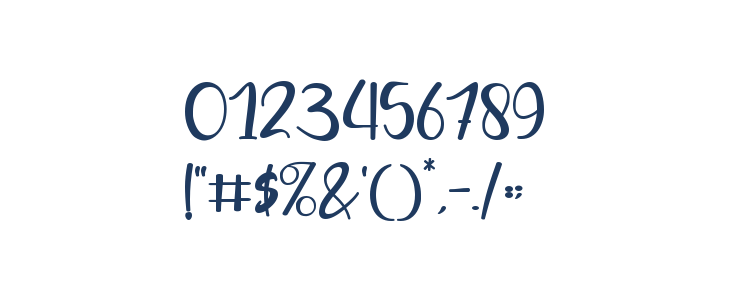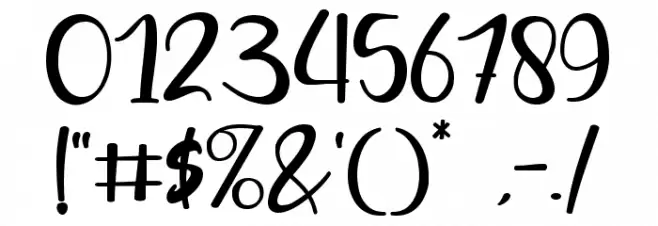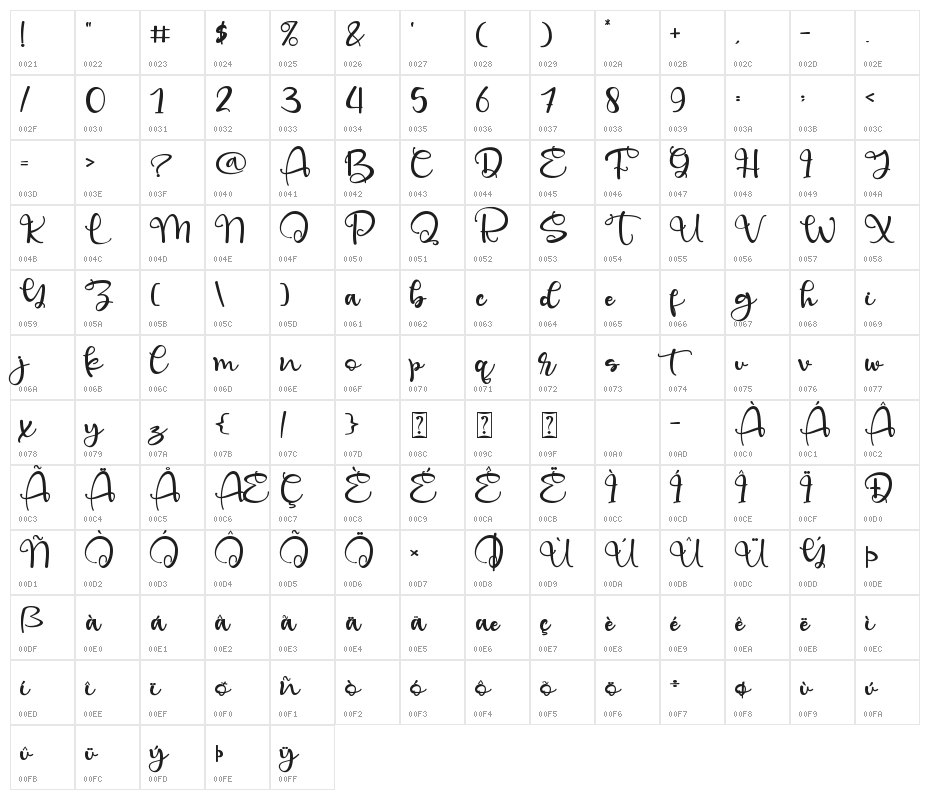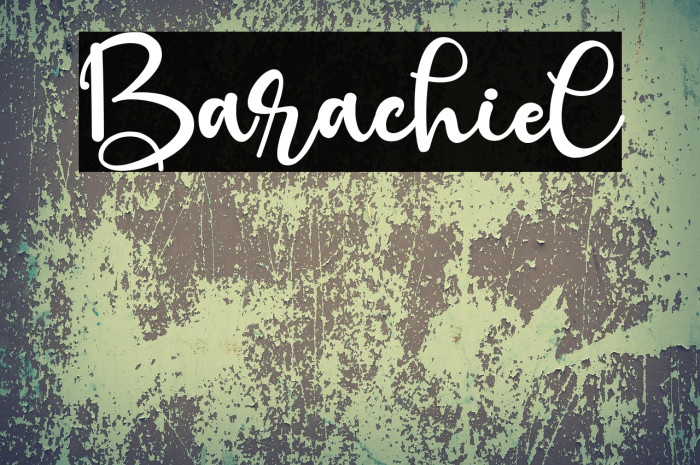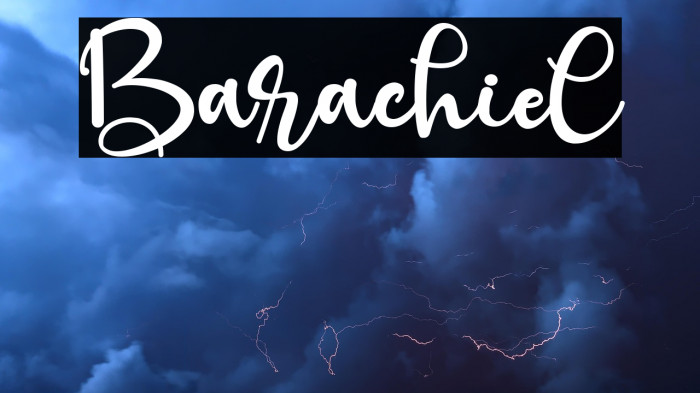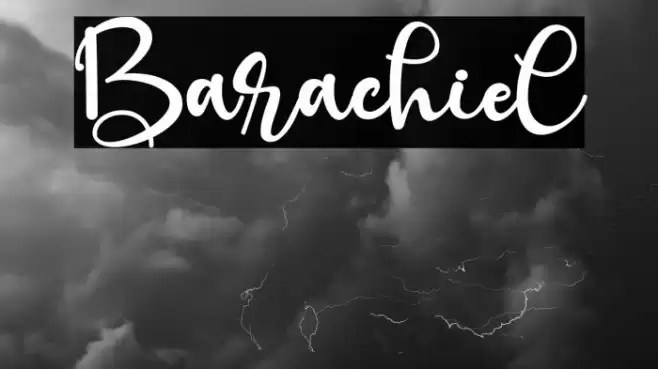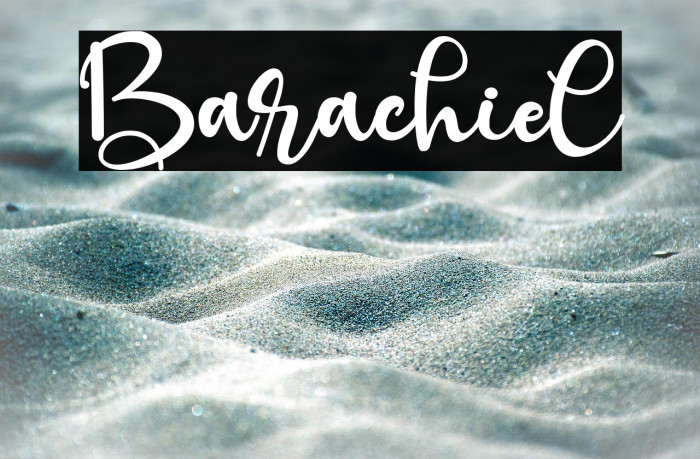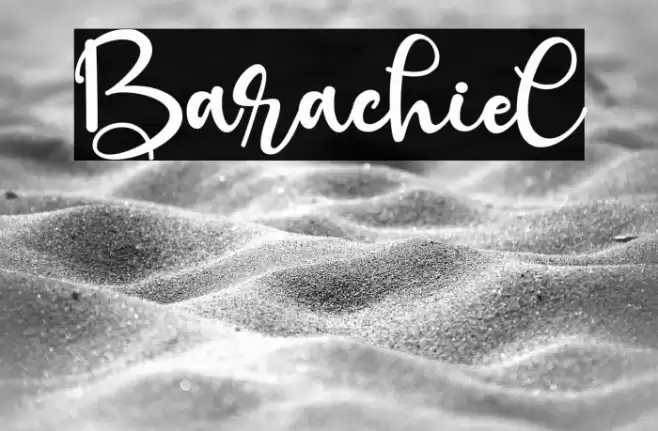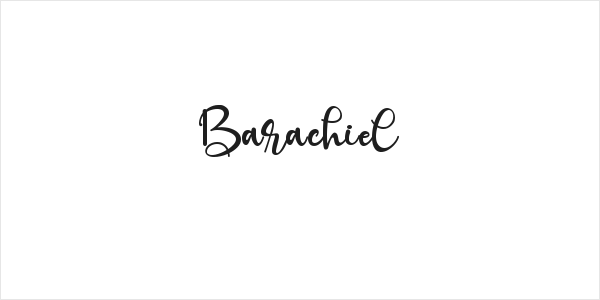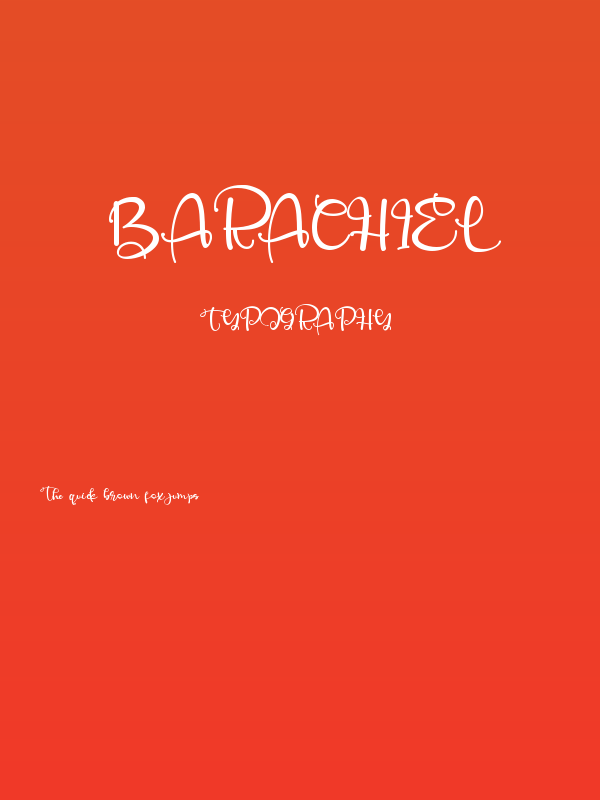
Barachiel Font
Barachiel Description
This font features a playful and elegant script style with a handwritten appearance. The uppercase letters are characterized by their flowing, interconnected strokes, creating a sense of movement and fluidity. The lowercase letters maintain a consistent style, with some letters featuring loops and swashes that add to the font's decorative nature. The numerals are clear and maintain the same playful style, making them easily readable. Special characters are creatively designed, fitting seamlessly with the overall aesthetic. This font is ideal for projects that require a personal touch, such as invitations, greeting cards, and branding materials.
| Proposed Projects | Ideal for invitations, greeting cards, branding, and decorative projects. |